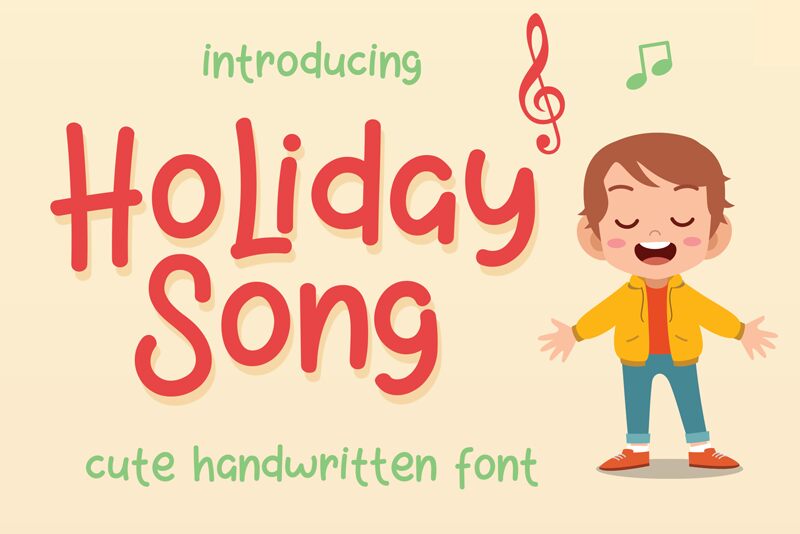
Holiday Song, a captivating handwritten font by Jos Gandos, exudes an enchanting aura perfect for a myriad of creative projects. With its delicate strokes and whimsical charm, this font beckons to be used in greeting cards, wedding invitations, and social media graphics. Its versatility shines through in children's book covers, cozy café menus, and even on festive holiday banners. Whether you're designing a playful logo or adding a personal touch to your blog headers, Holiday Song's unique style will effortlessly infuse warmth and joy into any project. Let the melody of Holiday Song inspire your next design venture!
Holiday Song
Jos Gandos